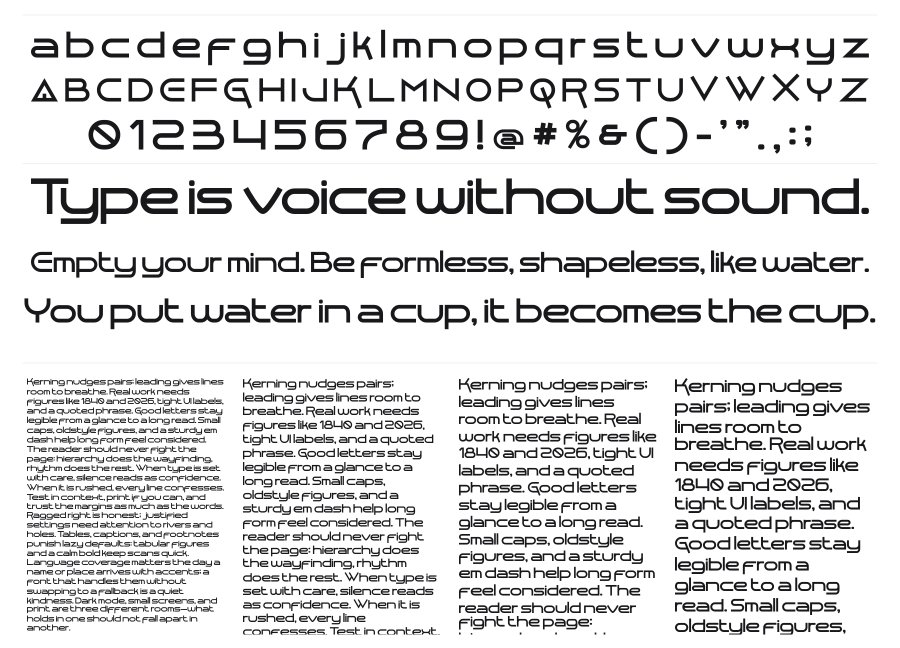
Gypsum
Gypsum is a wide geometric sans-serif with softly rounded terminals and a consistent monoweight stroke. The characters feel open and unhurried, with smooth curves that keep it from feeling too clinical or cold. It works well across branding, headlines, and digital interfaces where clean geometry with a touch of warmth is the goal.